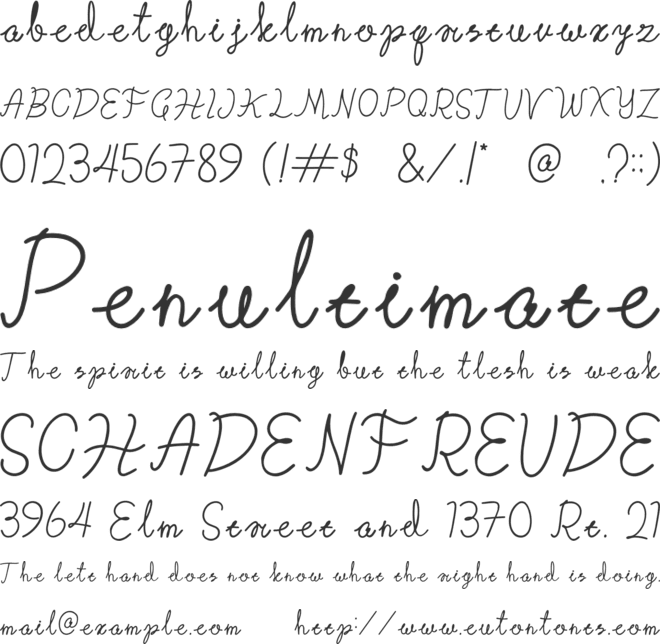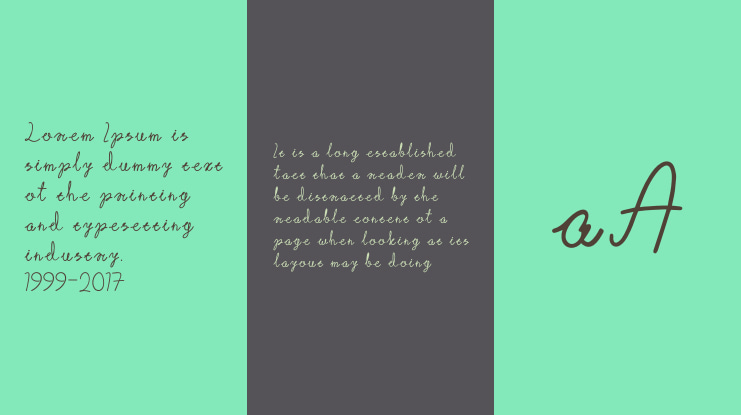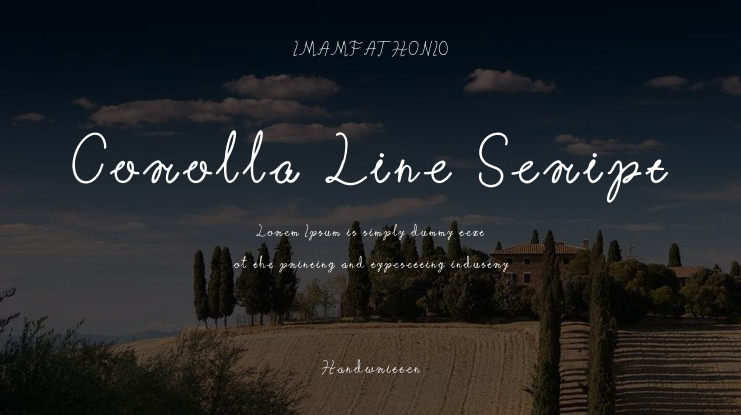
Corolla Line Script is a delicate thin-line script with airy, flowing cursive strokes. Its monoline handwriting and gentle rhythm give wedding stationery, logos, and quotes an effortless, graceful charm. The loose, informal letterforms feel light and personal, like a note written in one breath.